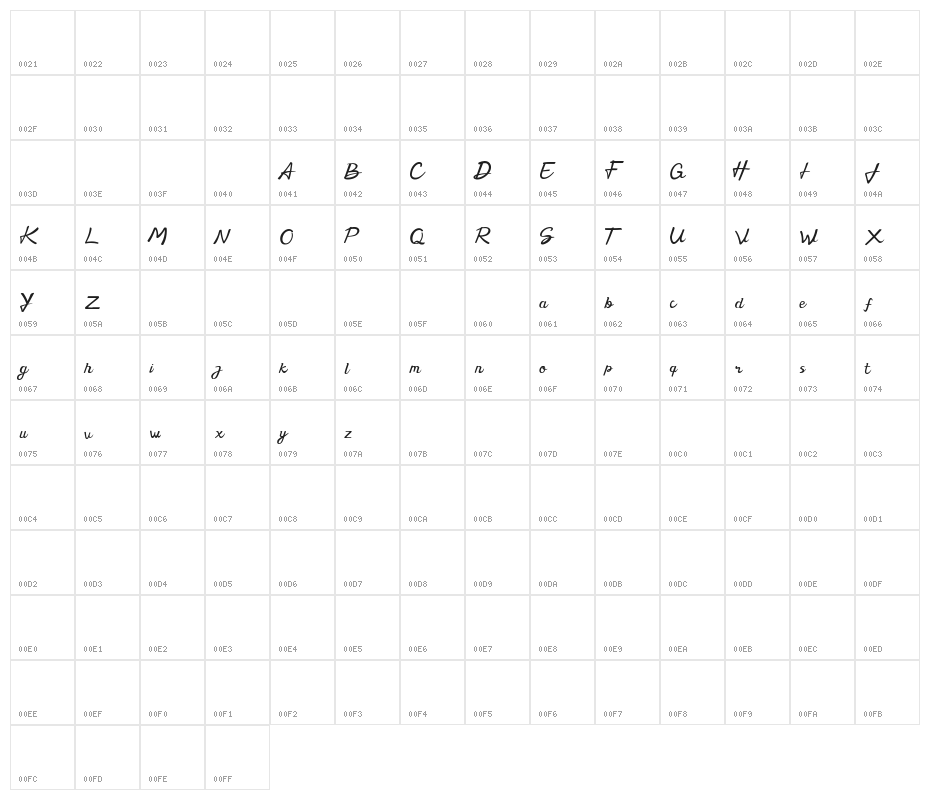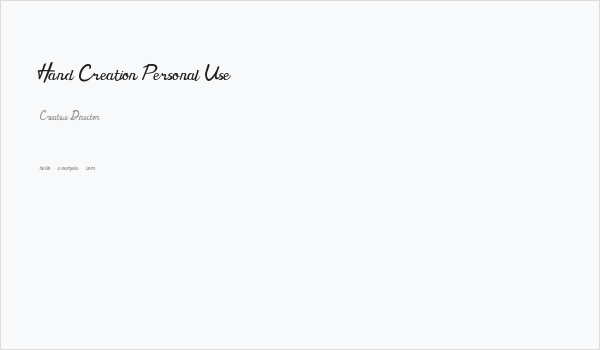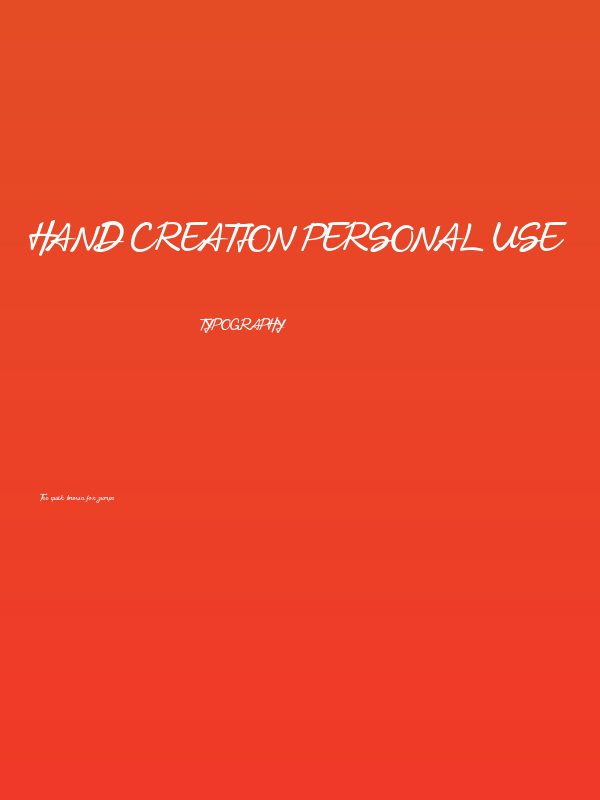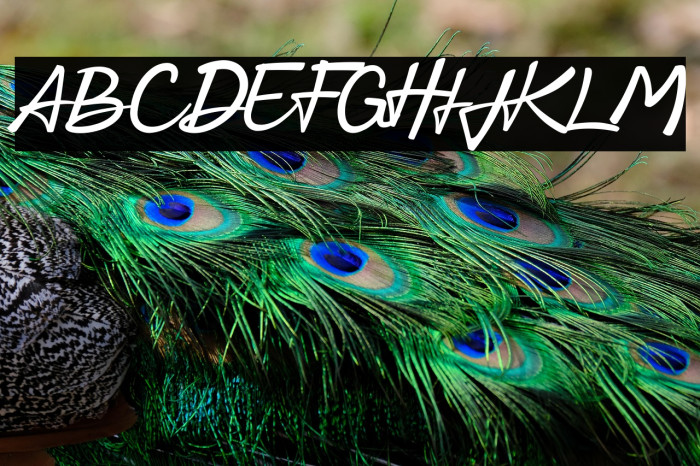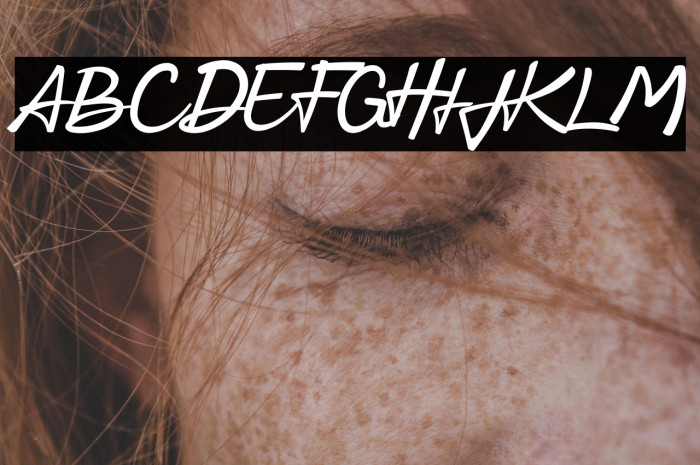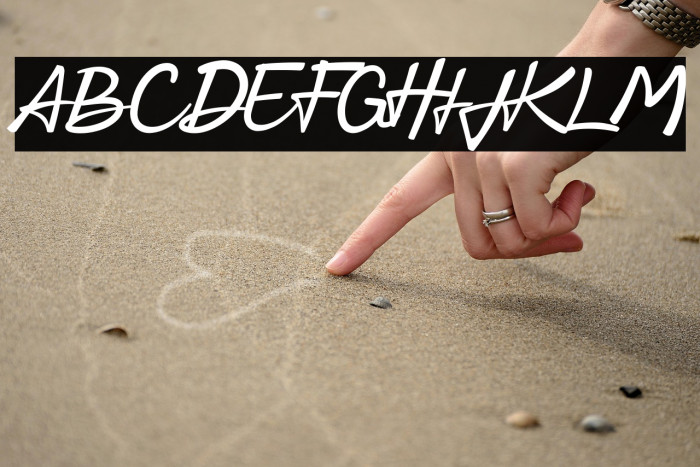
Hand Creation Personal Use Font
Hand Creation Personal Use Description
This font features a dynamic and flowing script style, characterized by its elegant, cursive letterforms. The uppercase letters are bold and slightly slanted, giving a sense of movement and fluidity. The lowercase letters maintain a consistent flow, with smooth connections between each character, enhancing the handwritten aesthetic. The overall appearance is both sophisticated and approachable, making it suitable for personal and creative projects. The font's design is reminiscent of traditional calligraphy, yet it maintains a modern twist with its clean lines and balanced proportions.
| Use Case | Logos, Invitations, Personal projects |
| Proposed Projects | Ideal for wedding invitations, personal branding, greeting cards, and artistic projects. |